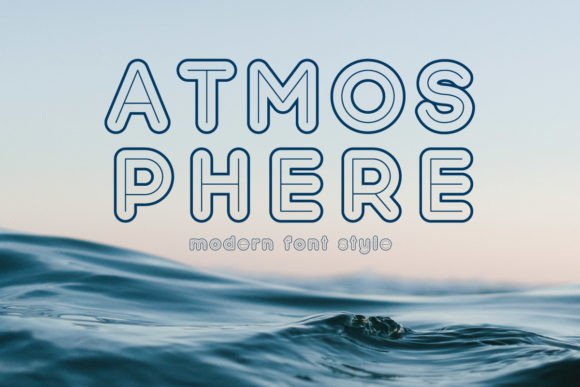
Unleash your creativity with Atmosphere Font, the ultimate display font designed to elevate your designs to new heights. Dive into a world of sleek lines, elegant curves, and captivating simplicity that will leave a lasting impression on your audience.
Crafted by the talented FONTNDA, Atmosphere Font is a masterpiece of digital artistry that redefines the boundaries of contemporary typography. Its classic rounded outline ensures effortless readability, while its modern, minimal vibe adds a touch of sophistication. With Atmosphere Font, your designs will exude a timeless elegance that will stand the test of time.
Step into a realm of endless possibilities with Atmosphere Font. Its versatile character set empowers you to create stunning logos, captivating headlines, eye-catching posters, and engaging social media graphics that will captivate your audience and leave them wanting more. Unleash your imagination and let Atmosphere Font guide you towards design brilliance.